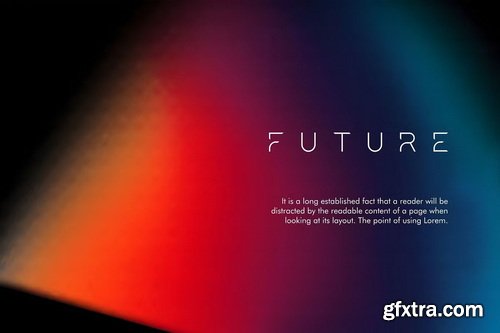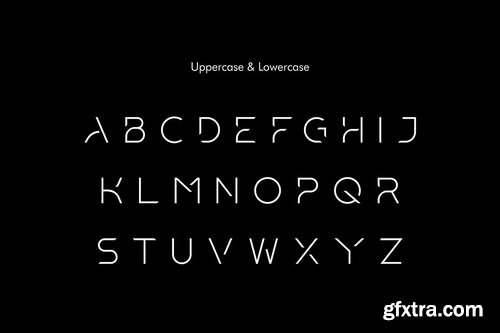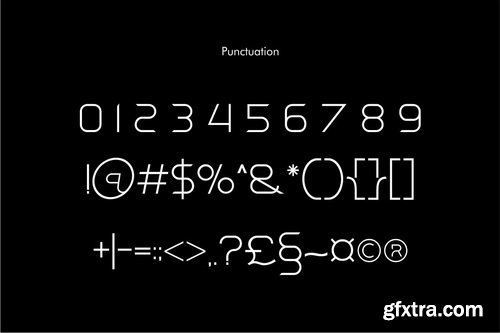
- Introducing MIRACLE – A bold, futuristic, and geometric sans serif font designed to elevate your creative projects into the next dimension.
- With its sleek, clean lines and modern techno vibe, MIRACLE is perfectly suited for technology branding, startup logos, mobile app UI/UX design, esports logos, corporate identity, digital product packaging, and cutting-edge social media content. Whether you're creating for AI industries, blockchain companies, metaverse platforms, or modern wearable technology, this typeface ensures your design stands out with clarity and futuristic elegance.